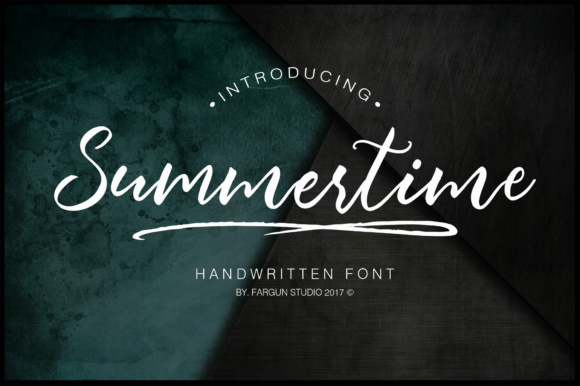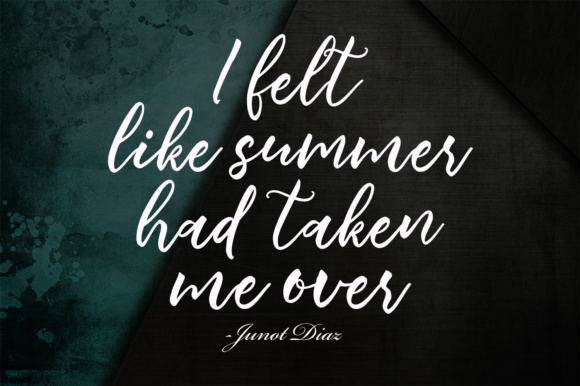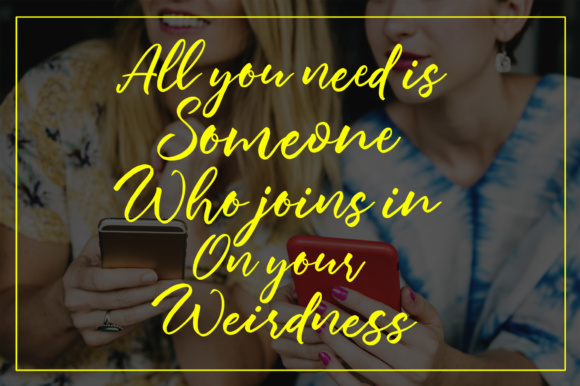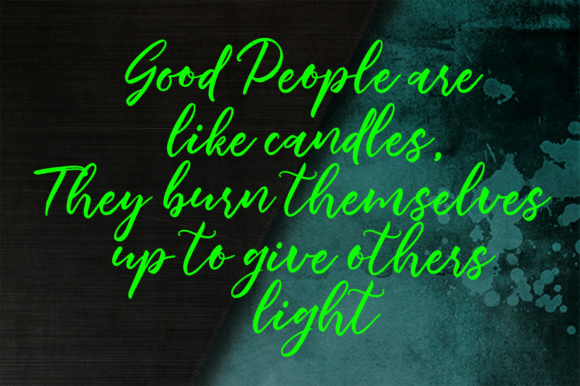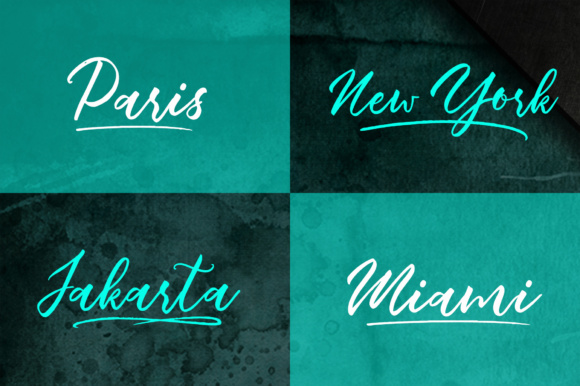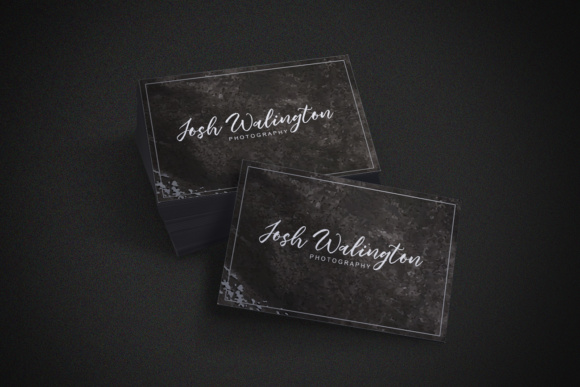
Summertime Script Font
About Summertime Script Font
Summertime is a beautiful handwritten font with a signature style. With it’s alternate lowercase glyphs set, Summertime is perfect for branding projects, product packaging or simply as a stylish text overlay to any background image.